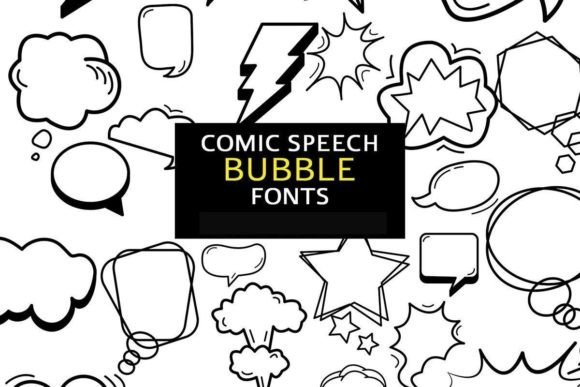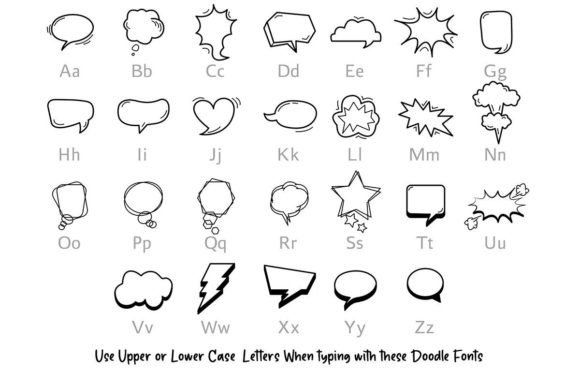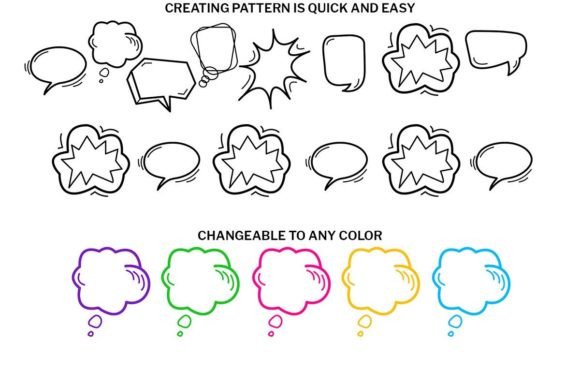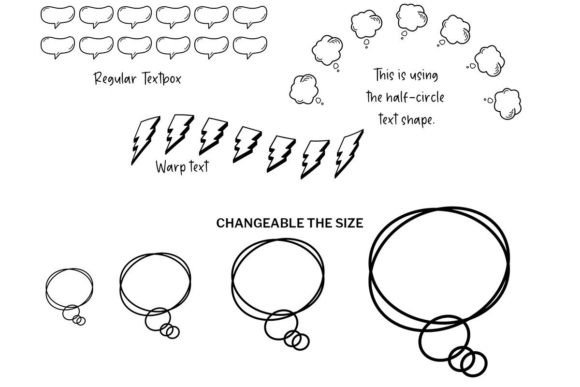
Comic Speech Bubble Font
About the Comic Speech Bubble Font
Unleash your creativity with Comic Speech Bubble Font, a versatile font perfect for a wide range of applications. Comic Speech Bubble is a fun and cute dingbat font. Its versatility makes it great for a wide pool of craft projects, designs, planners, diaries, activity books, or anything that your heart desires!
This font’s playful, cartoonish style is ideal for children’s books, greeting cards, and playful branding projects needing a touch of whimsy. It excels in headlines, short text sections, and decorative elements, adding visual interest to layouts. However, its low readability makes it unsuitable for body text or UI elements requiring clear communication.
Consider pairing Comic Speech Bubble with a clean sans-serif like Open Sans for balance, or a classic serif like Garamond for contrast, creating a sophisticated yet playful feel. A handwritten script font could also work well for adding a personal touch.
The overall personality is undeniably cheerful and informal; perfect for brands targeting a young, fun-loving audience. Avoid using it in contexts demanding seriousness or professionalism.